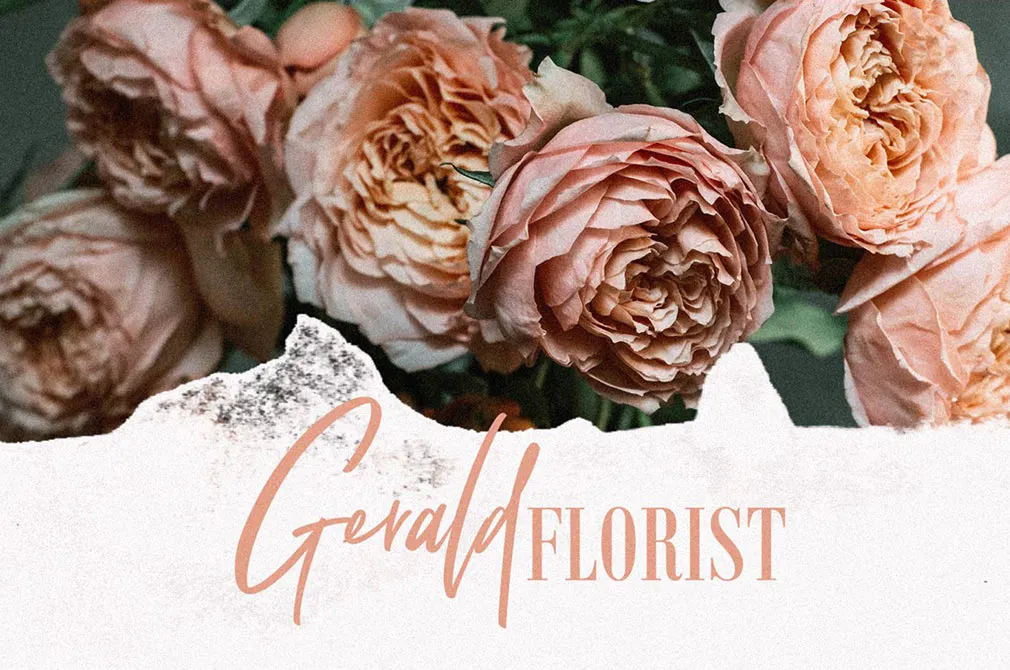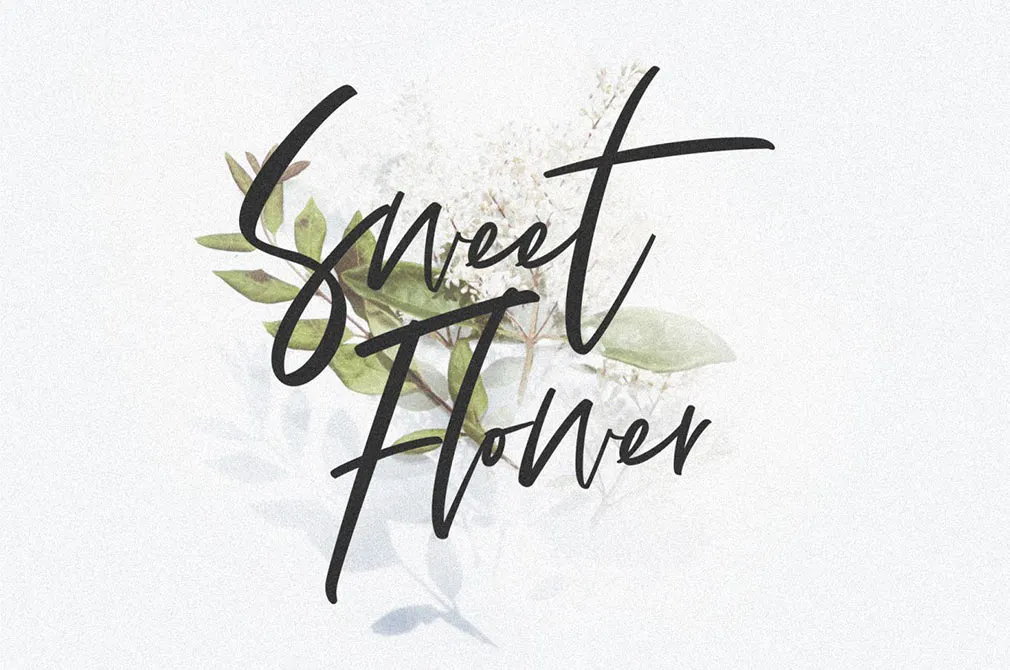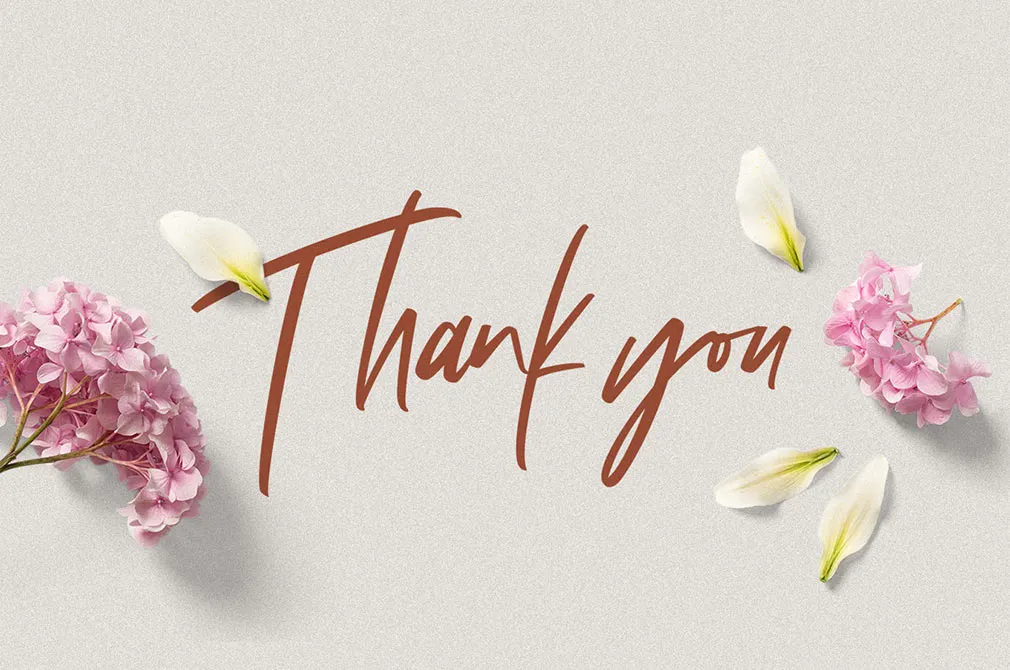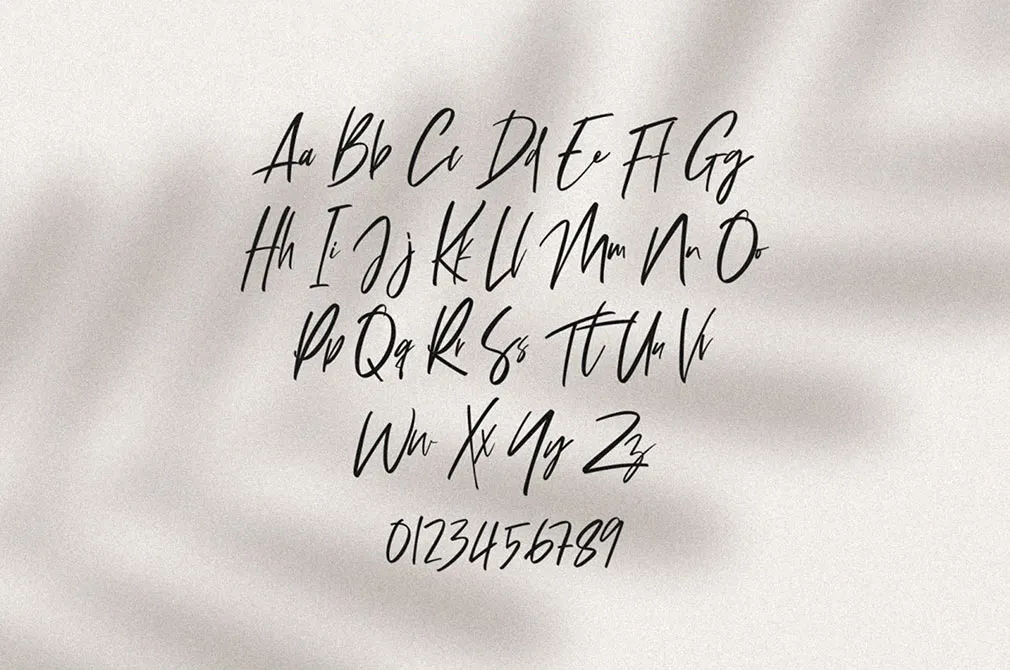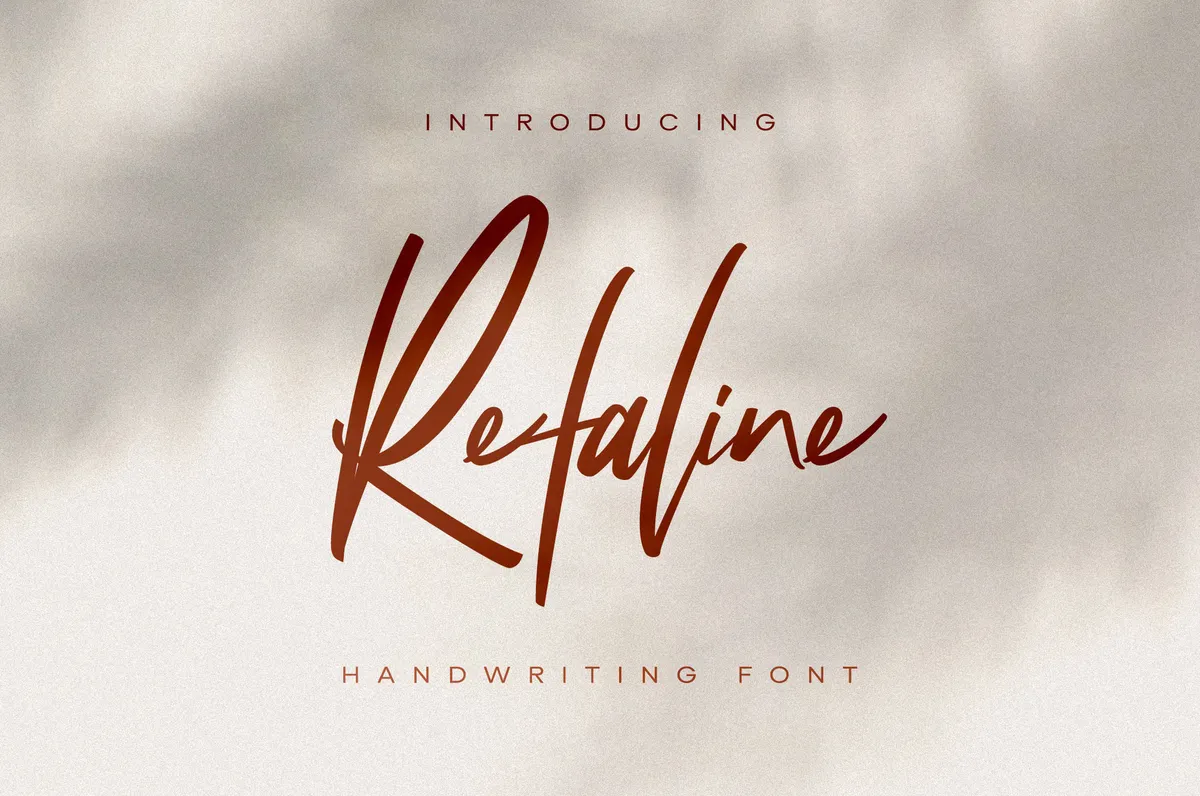
Refaline Script Font
Loose lines of a perfectly light script font are thrilling! What story is hidden behind these thing lines, what emotions do they convey? Compose your own tale with the magic of Refaline.
It's as tender as a feather, penetrating your design composition with the delicate curves. Ligatures, numbers & punctuation it has it all for creating the most convenient experience you can ever have working with the font. Create beautiful ads, headlines, design invitations and cards, decorate photos with the extremely romantic typographic approach!